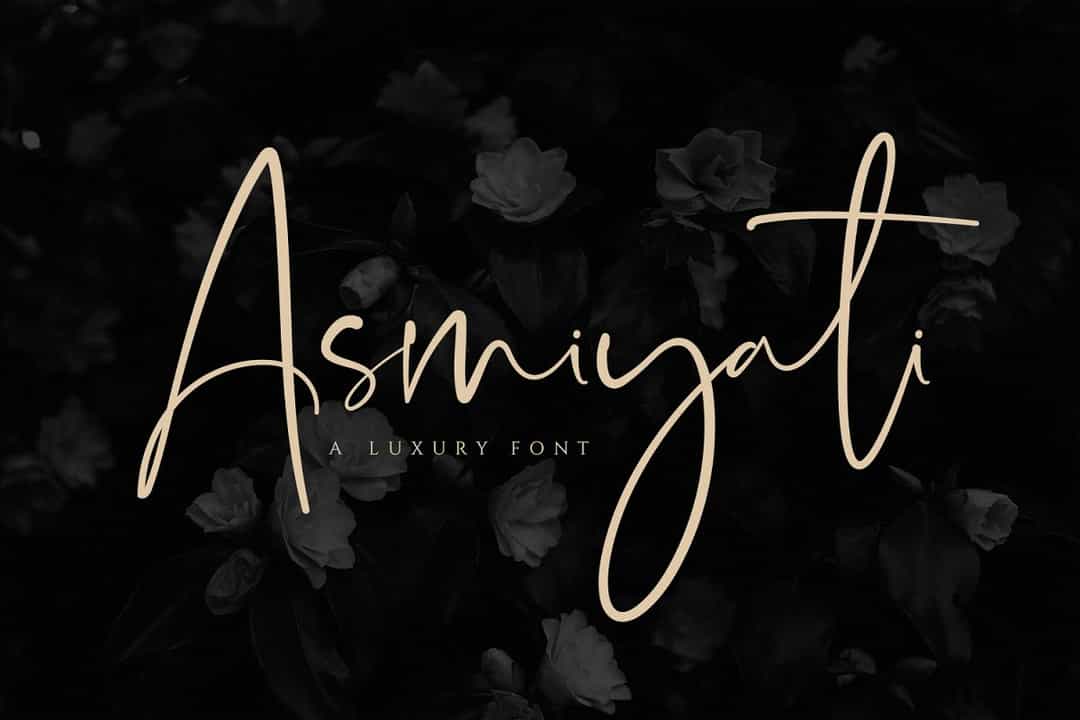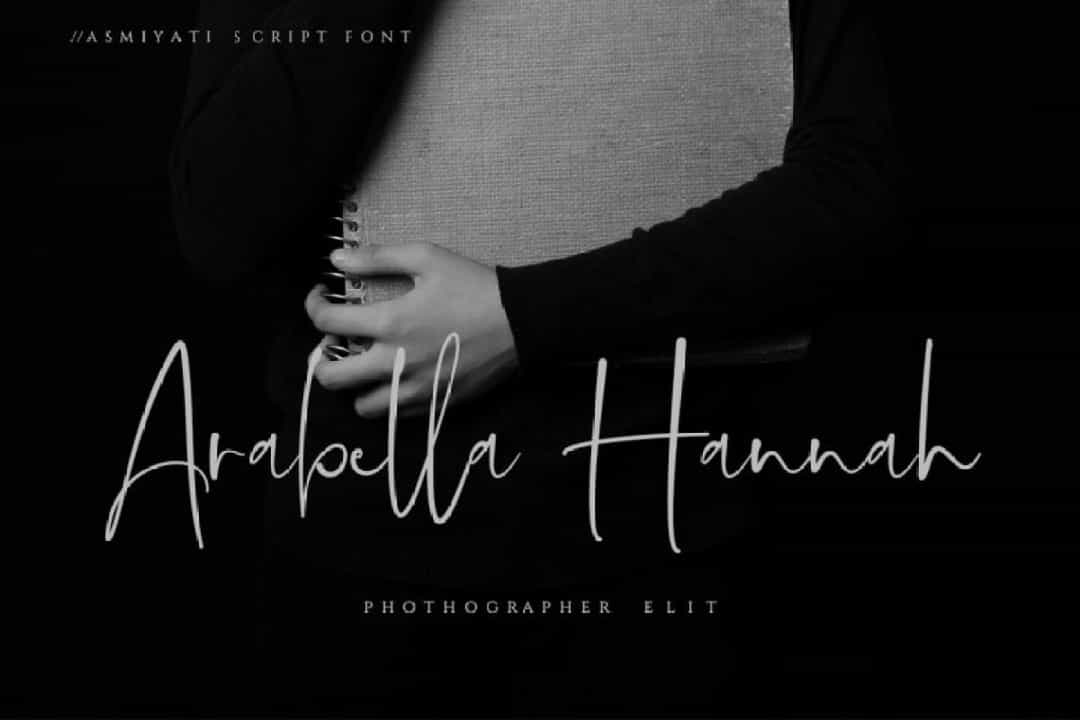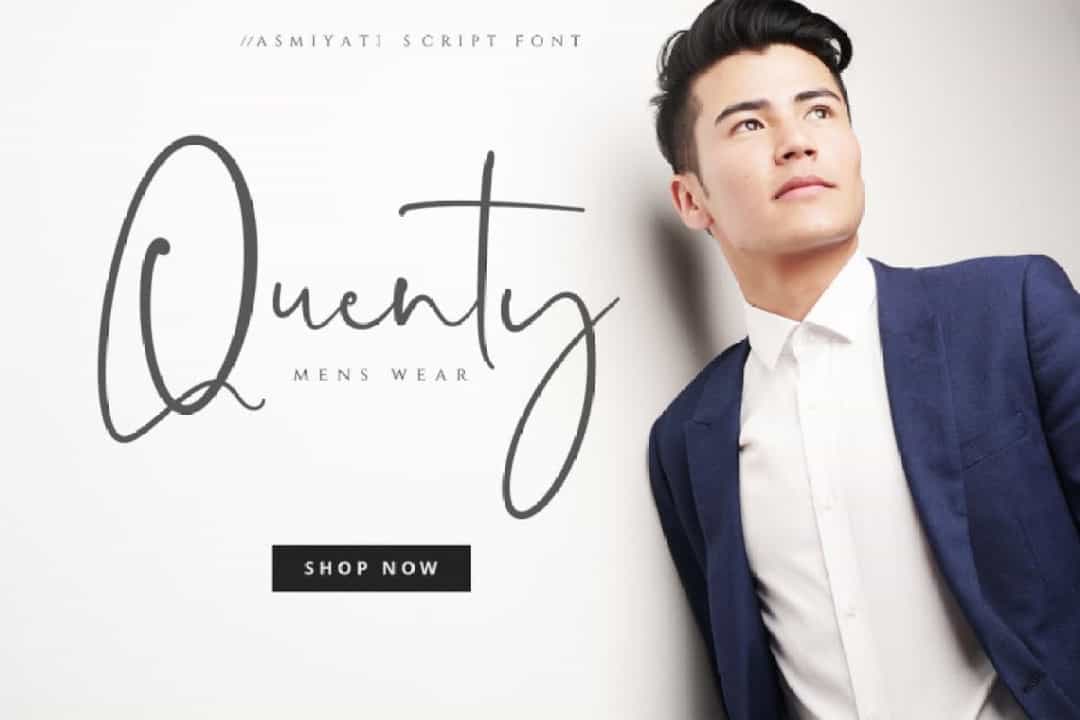
Discover Asmiyati Luxury Script Font, part of the Commercial Calligraphy Handwritten collection—a versatile and unique font perfect for adding a personal touch to your projects. Download it for free and enjoy crafting designs with style, from invitations to social media posts. This font is available exclusively for personal use, giving you the freedom to create without limits. Unlock your creativity with Asmiyati Luxury Script Font today!
Asmiyati – A Handwriting script font and the exclusive character! it is excellent for logos, name card, magazine layouts, invitations, headers or even large-scale artwork.